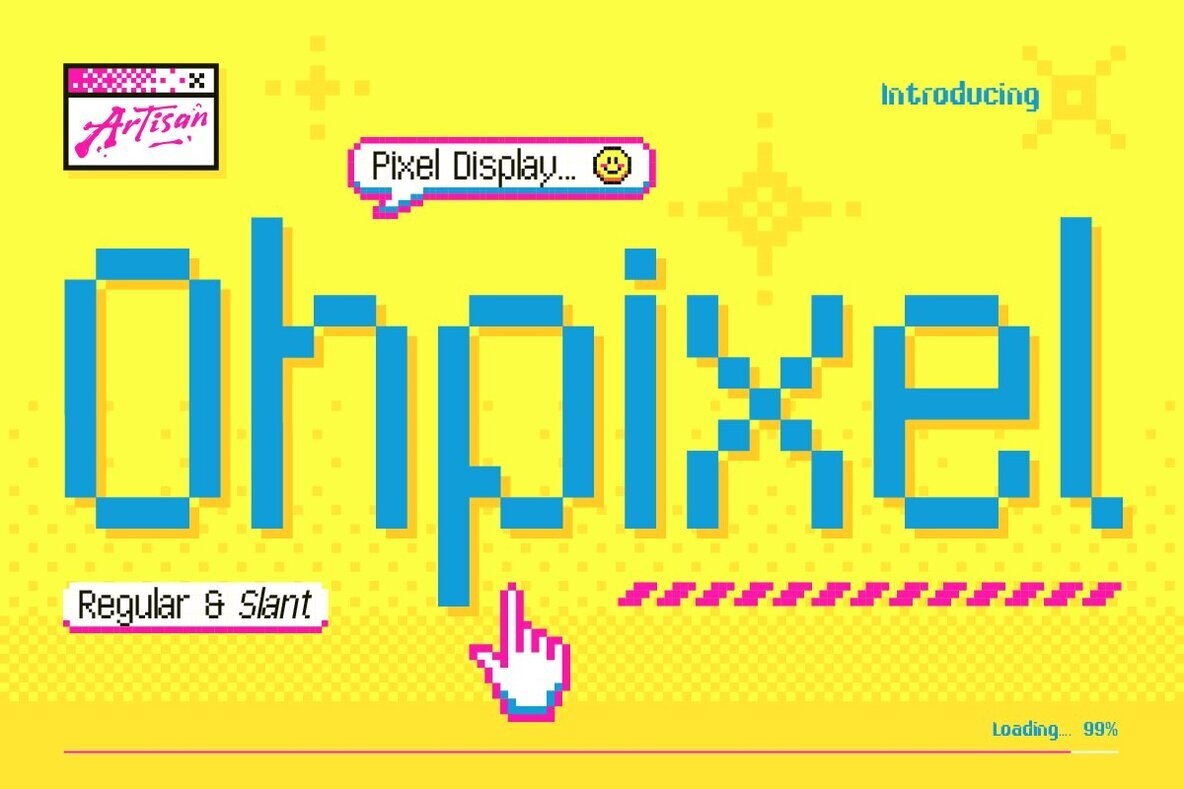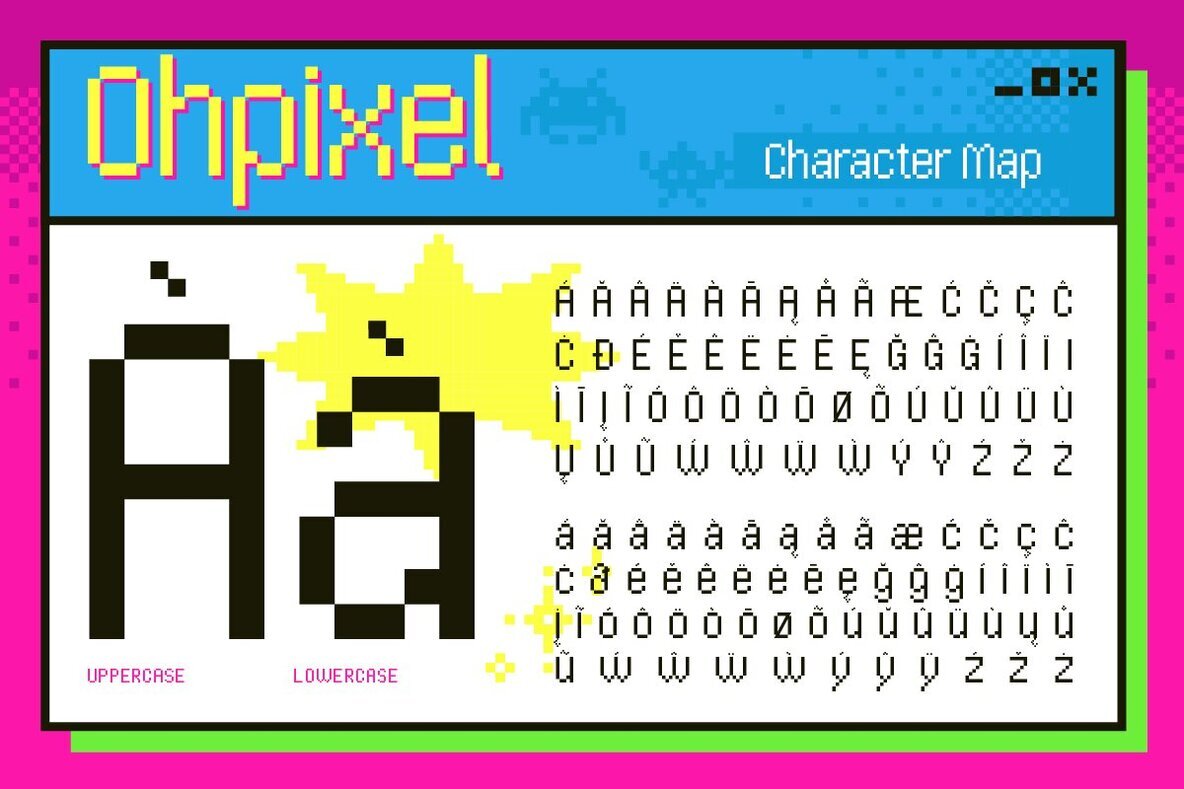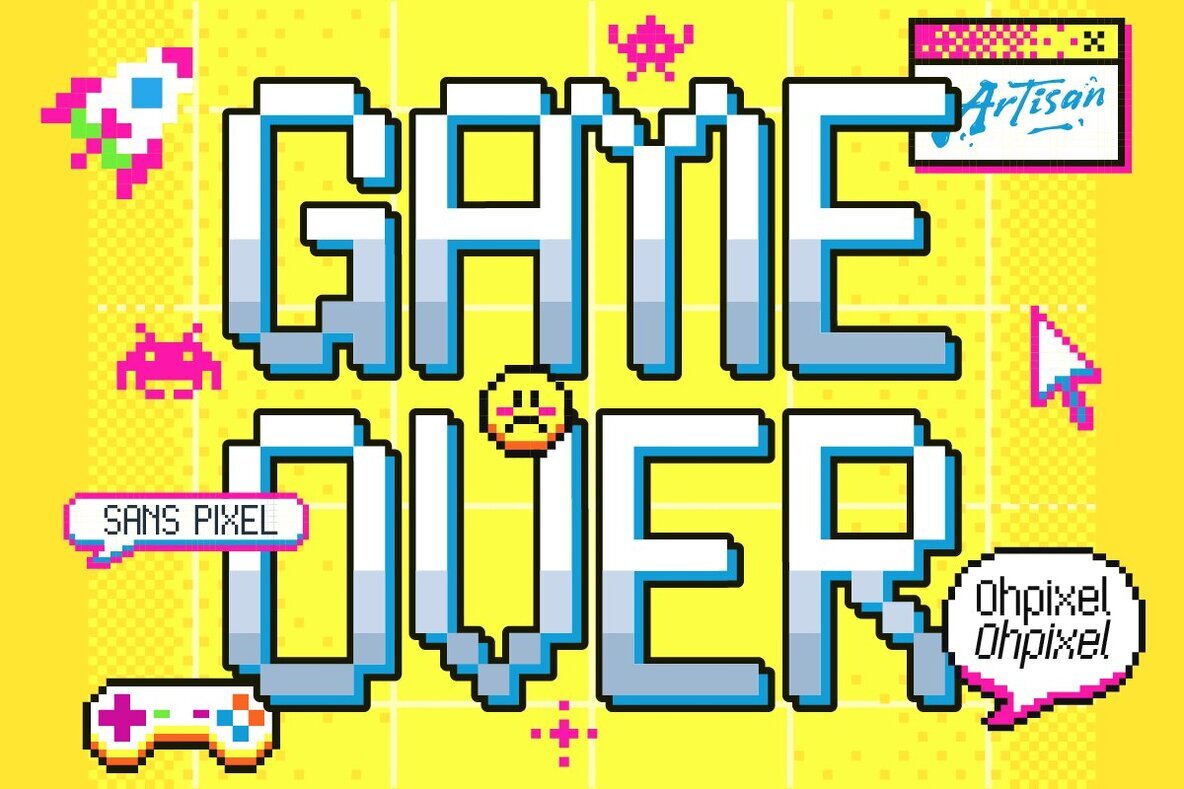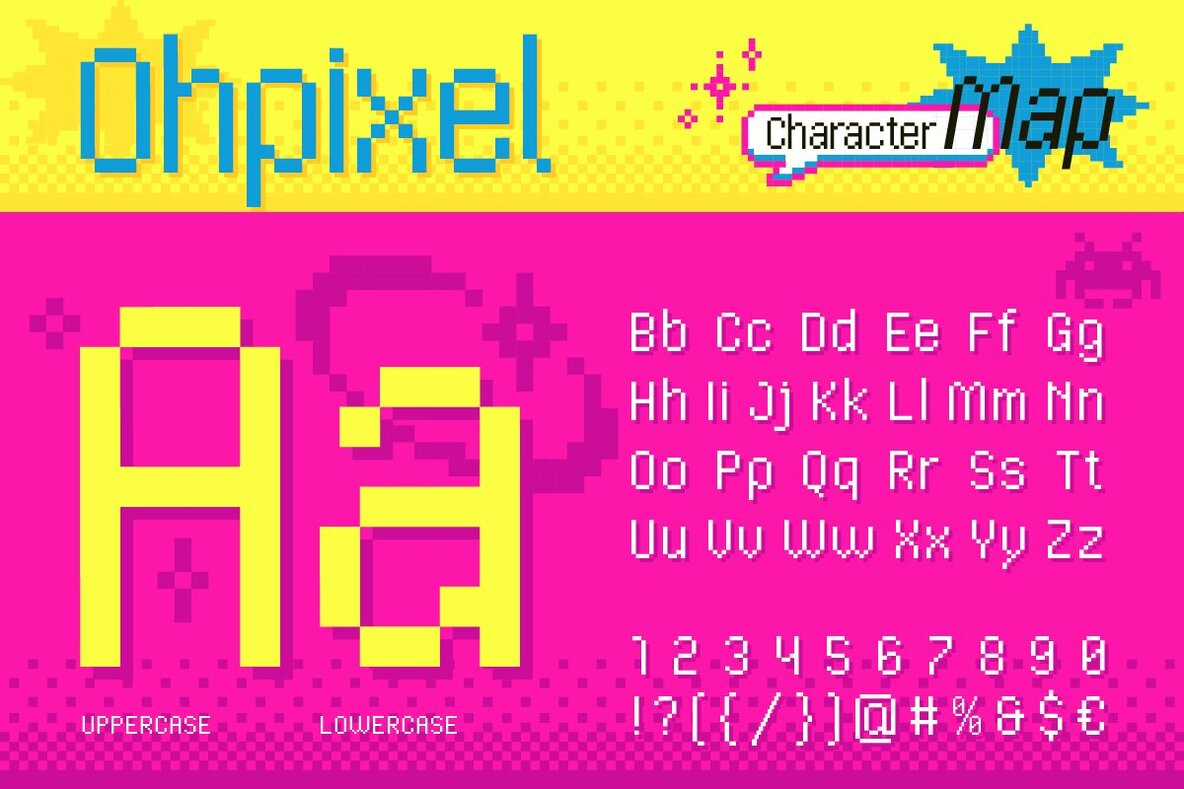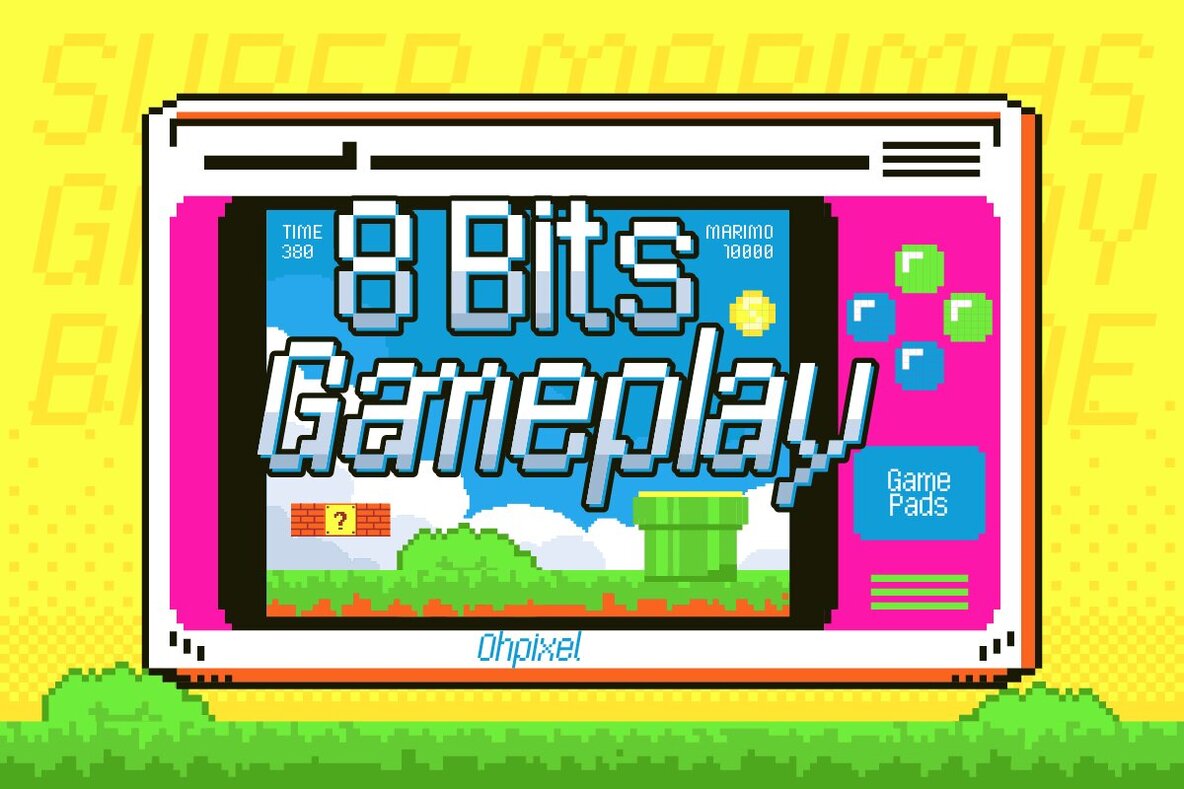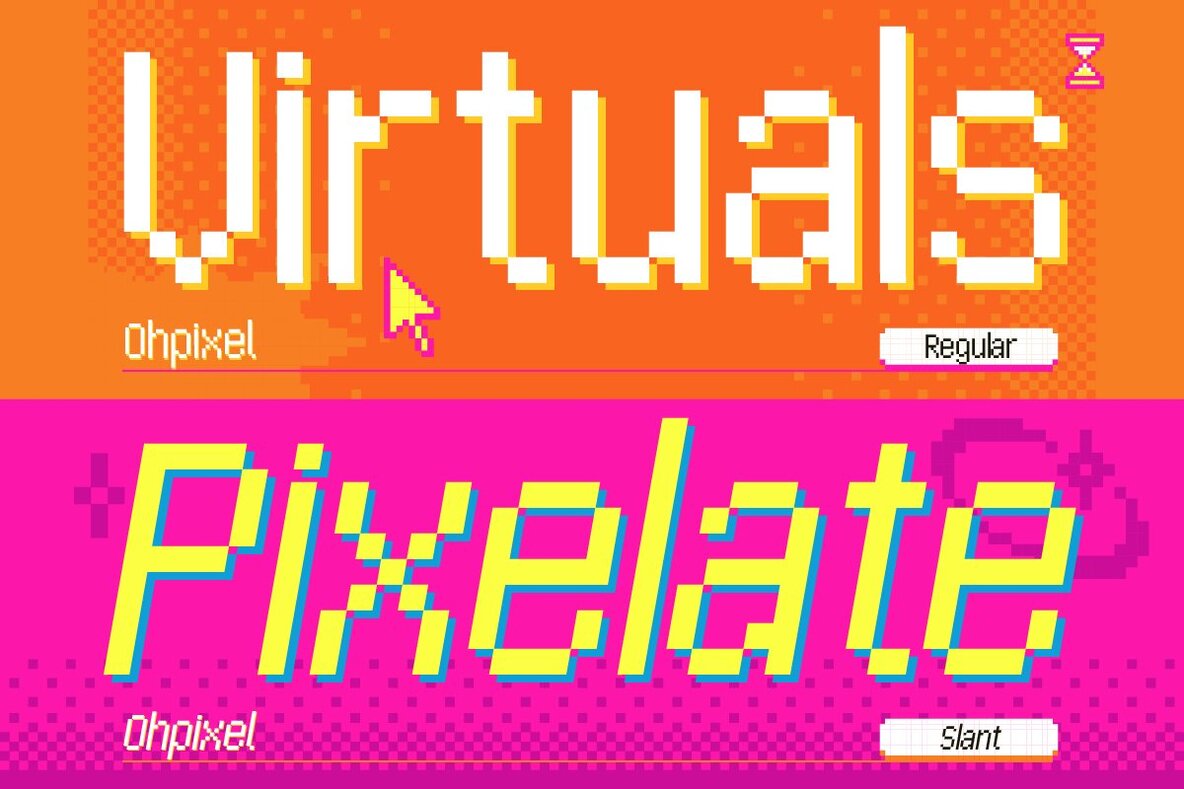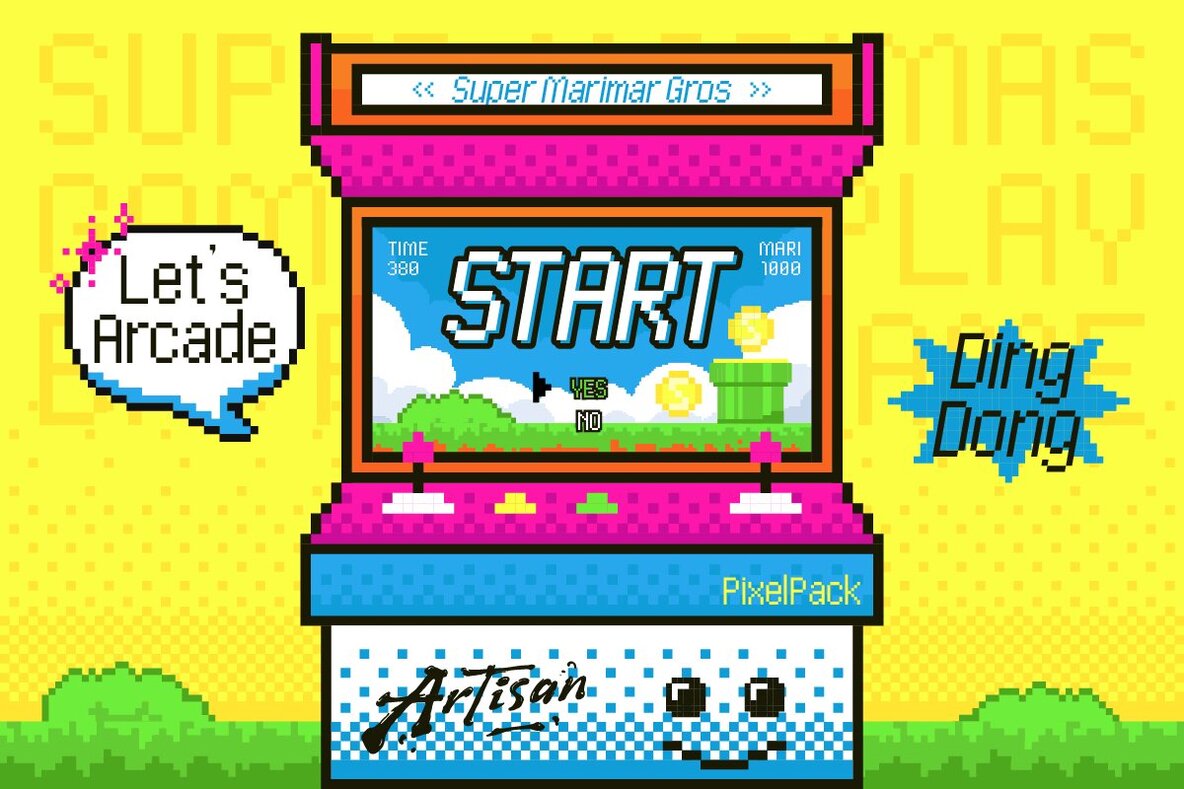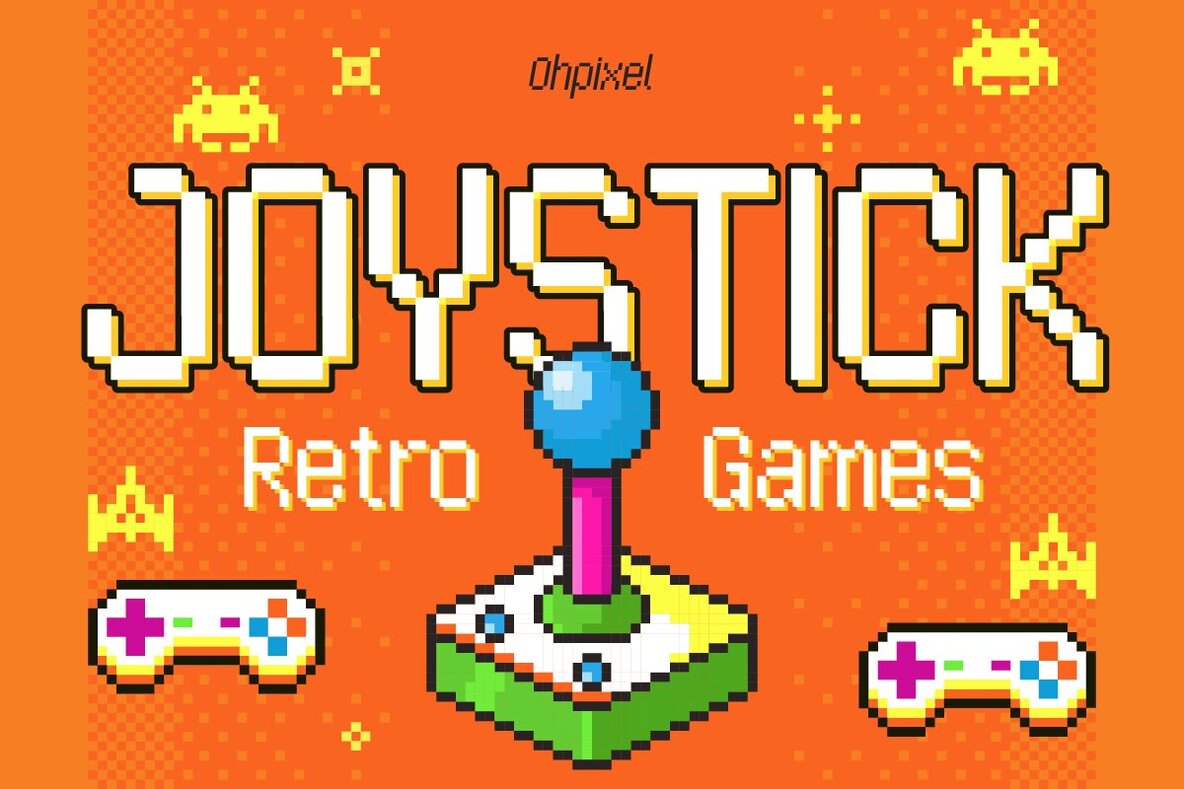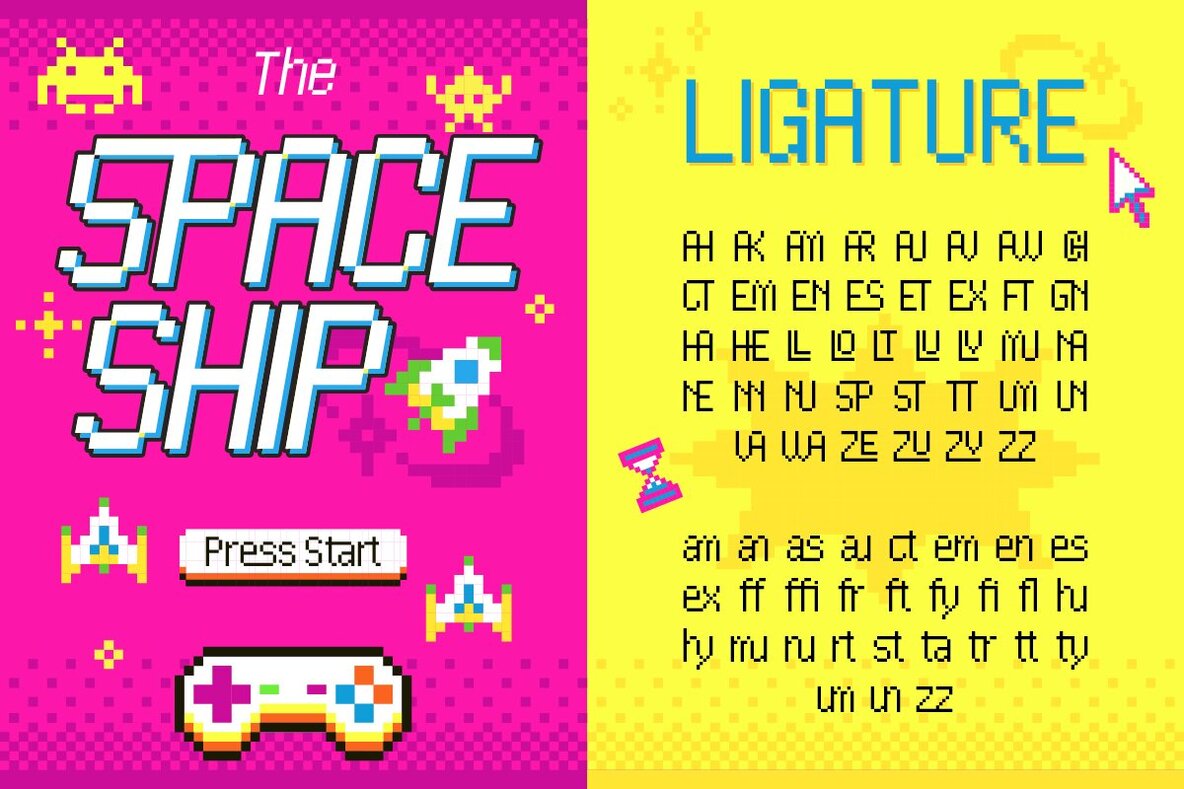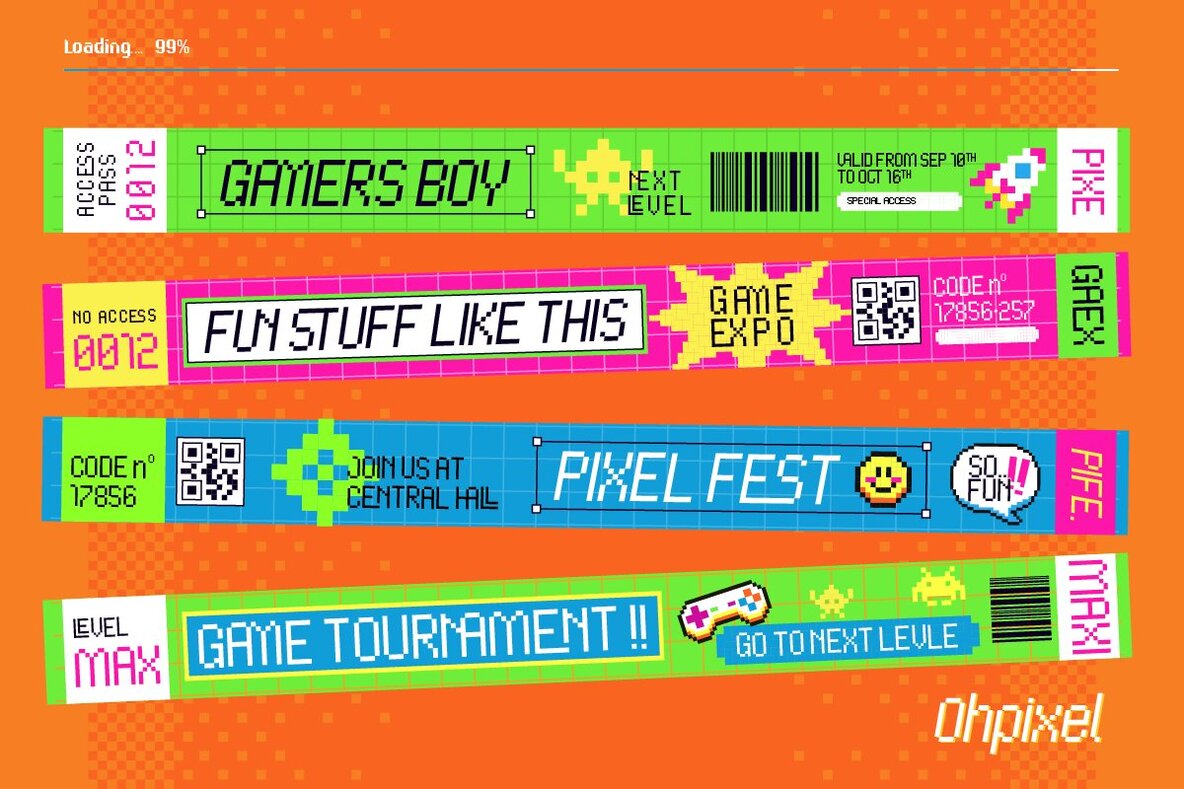
Ohpixel Font
Step back into the beloved era of 8-bit arcades with Ohpixel, a typeface designed to evoke nostalgia and charm. Characterized by its vibrant hues and bold pixels, Ohpixel offers a tactile connection to the classic 'click-clack' of vintage gaming, ideal for those who adore retro aesthetics. Available in two unique styles—Regular for a sharp, readable impact, and Slant for a swift, energetic twist—this typeface is perfect for titles, logos, or any project that demands to stand out with an exuberant flair. Whether you're crafting posters, designing game user interfaces, or creating merchandise and YouTube thumbnails, Ohpixel infuses each piece with playful energy and retro magic.Ohpixel: Retro Pixel Typeface for a Nostalgic Vibe